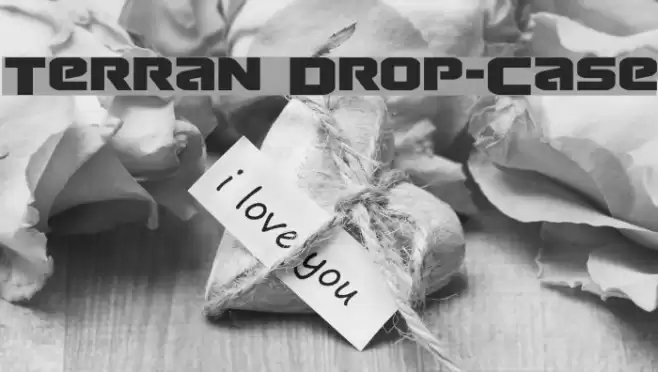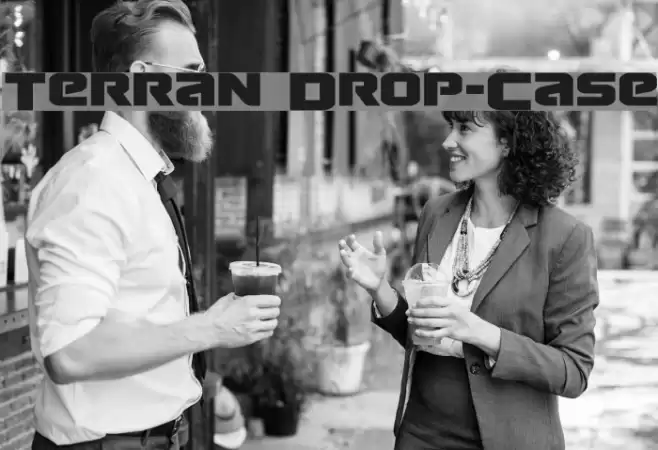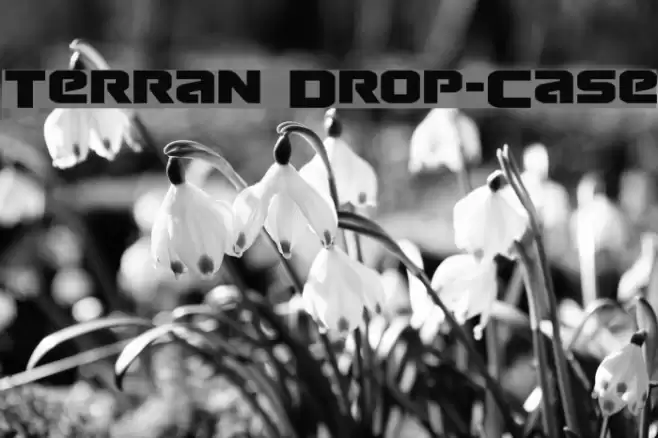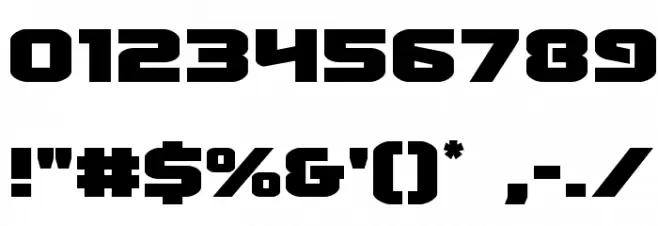
Terran Drop-Case Font
Terran Drop-Case Description
This font features a bold, futuristic design with strong geometric shapes and a distinct, angular style. The characters are wide and blocky, giving them a commanding presence. The uppercase and lowercase letters maintain a consistent height, contributing to a uniform appearance. The numerals and special characters follow the same design principles, ensuring cohesion across all elements. The font's boldness and unique style make it suitable for projects that require a modern and impactful look.
A bold, futuristic font with geometric, angular shapes from Uncategorized fonts.
- Proposed Projects: Ideal for sci-fi themed designs, video game titles, tech branding, and futuristic posters.
- Width: Expanded